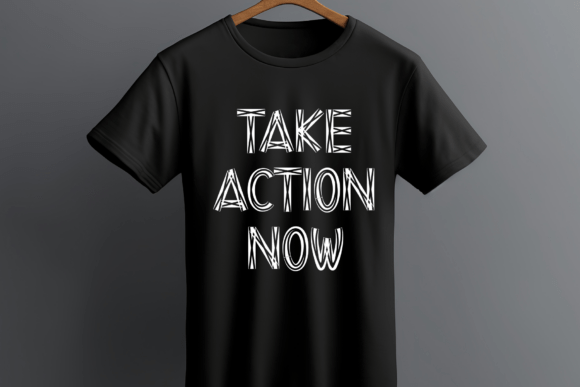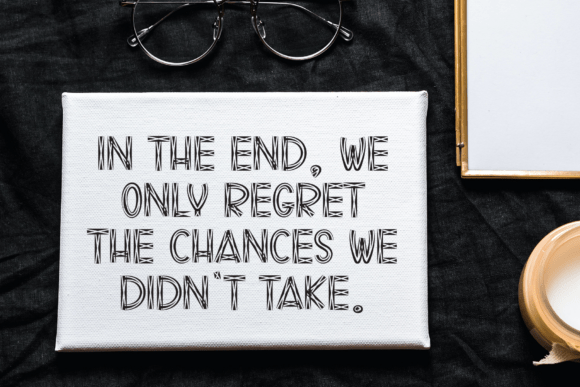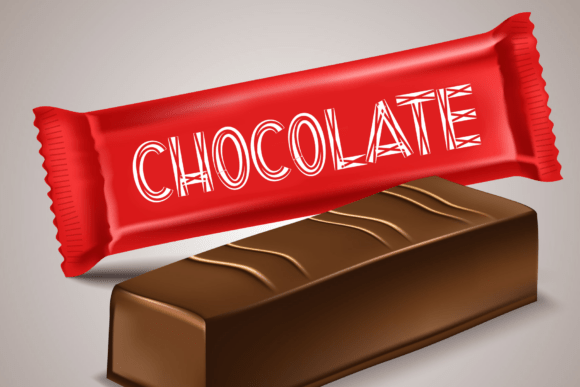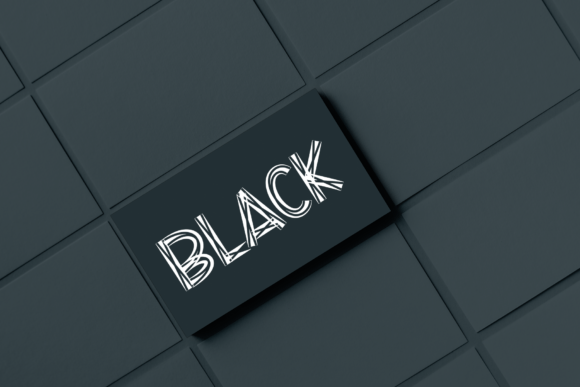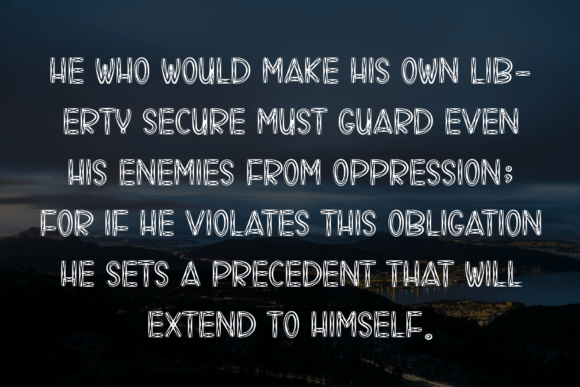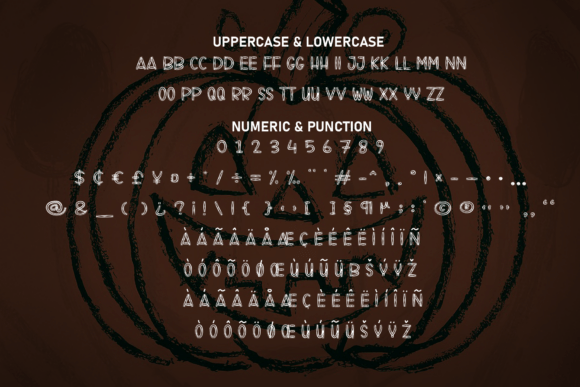
Introducing Brush Pumpkin Font: The Perfect Blend of Playfulness and Elegance
Are you on the hunt for a font that can add a dash of fun and whimsy to your designs? Look no further than the Brush Pumpkin Font, a charming and inviting handwritten display font that’s perfect for a variety of creative projects. Crafted with flexibility and friendliness in mind, this delightful font is sure to become your go-to companion for wedding invitations, cards, and any design that craves a splash of personality.
The Charm of Brush Pumpkin Font
What sets Brush Pumpkin Font apart is its unique blend of quirkiness and elegance. With its endearing, handwritten aesthetic, this font effortlessly transforms any ordinary design into a captivating piece worth remembering. Whether you’re a designer looking to add some flair to a client’s project or a crafter seeking to create something special, Brush Pumpkin Font is the perfect choice.
Brush Pumpkin Font is incredibly versatile, making it suitable for a wide range of projects. Here are just a few ideas to get you started:
- Wedding Invitations: Add a touch of whimsy and romance to your wedding invitations with Brush Pumpkin Font. Its elegant, yet playful aesthetic is perfect for couples looking to make a statement.
- Cards and Stationery: Whether you’re creating birthday cards, thank-you notes, or holiday greetings, Brush Pumpkin Font is sure to add a dash of fun and personality to your designs.
- Signs and Banners: Use Brush Pumpkin Font to create eye-catching signs and banners for parties, events, or promotions. Its bold, yet playful aesthetic is sure to grab attention.
- Digital Designs: Brush Pumpkin Font is also perfect for digital designs, such as social media graphics, blog headers, and email newsletters.
Key Features of Brush Pumpkin Font
So, what makes Brush Pumpkin Font so special? Here are just a few key features that set it apart:
- Handwritten Aesthetic: Brush Pumpkin Font boasts a charming, handwritten aesthetic that’s perfect for adding a touch of personality to your designs.
- Flexibility: This font is incredibly flexible, making it suitable for a wide range of projects and design applications.
- Friendliness: Brush Pumpkin Font has a friendly, approachable feel that’s perfect for designs that require a touch of warmth and approachability.
- Elegance: Despite its playful aesthetic, Brush Pumpkin Font still maintains an element of elegance and sophistication, making it perfect for designs that require a touch of refinement.
Why Choose Brush Pumpkin Font?
With so many fonts to choose from, why should you choose Brush Pumpkin Font? Here are just a few reasons why this font stands out from the crowd:
- Unique Aesthetic: Brush Pumpkin Font boasts a unique, one-of-a-kind aesthetic that’s sure to make your designs stand out.
- Versatile: Brush Pumpkin Font is incredibly versatile, making it suitable for a wide range of projects and design applications.